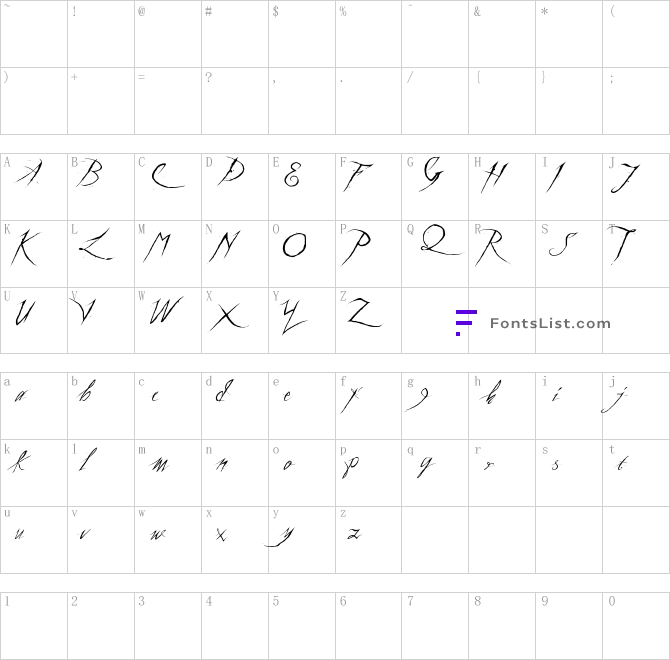
• Font Name:a Theme for murder
a-Theme-for-murder.ttf is a very beautiful artistic font, a-Theme-for-murder.ttf is widely used in the design and printing of various books and pictures,a-Theme-for-murder.ttf has a strong visual impact,a-Theme-for-murder.ttf is a commonly used font in newspapers, magazines and books, and is used in posters, e-commerce Poster design, store design, logo design, font design and other fields.a-Theme-for-murder.